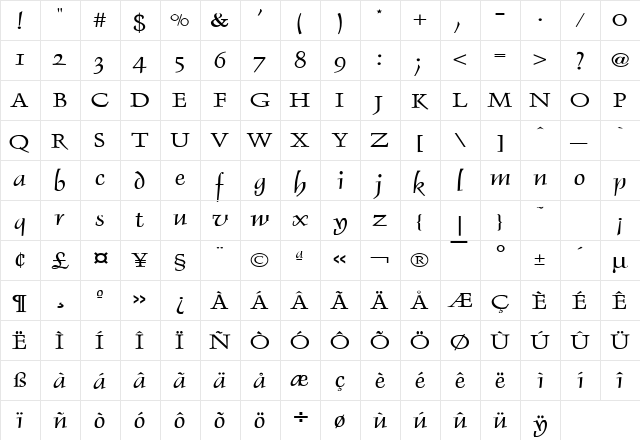
Dolphin Wide Normal
Design Context for Dolphin Wide Typeface
Dolphin Wide offers clean, dependable letterforms without strong stylistic allegiance, making it a practical choice for designers who need flexibility.
Pro Tip: Use Dolphin Wide in both headline and body roles to test its range before committing to a single application.